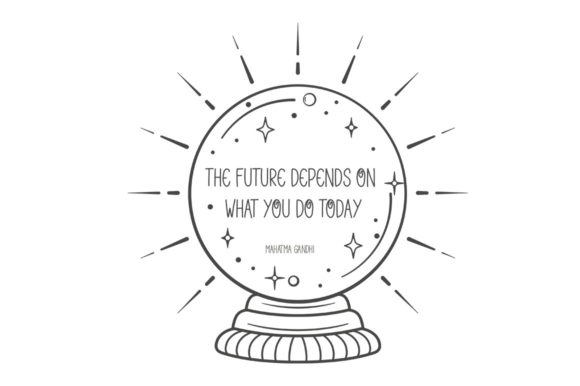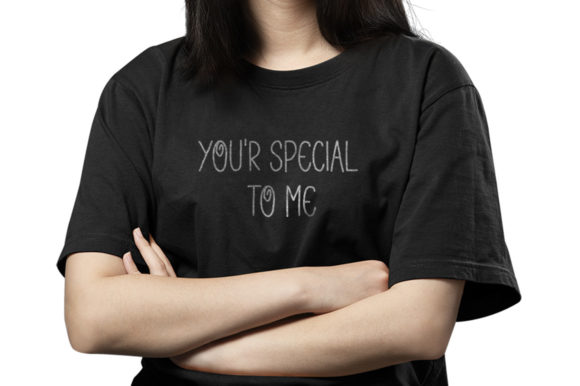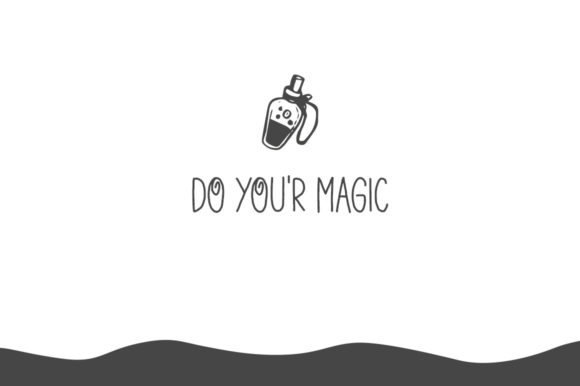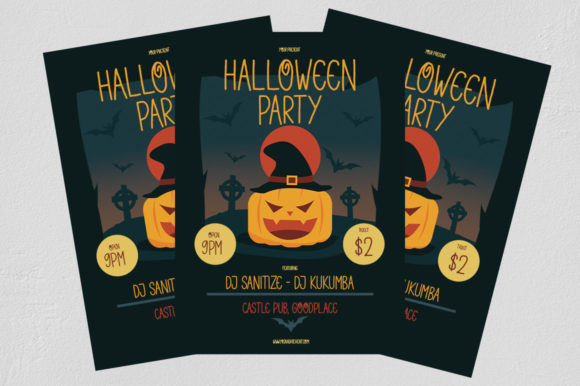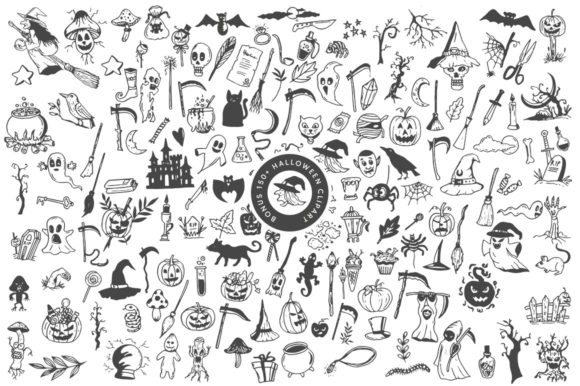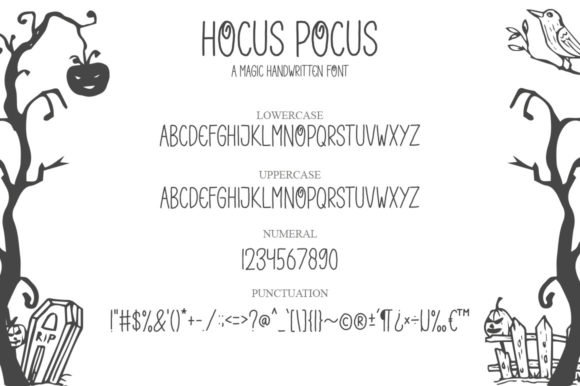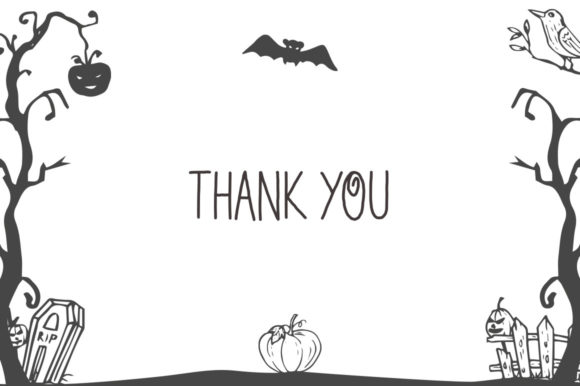
Hocus Pocus Font
About Hocus Pocus Font
Hocus PocusĀ is a cute and thin lettered handwritten font that can be used for all chalkboard quotes or teaching material! Its authentic look will add a personal and realistic feel to your designs.